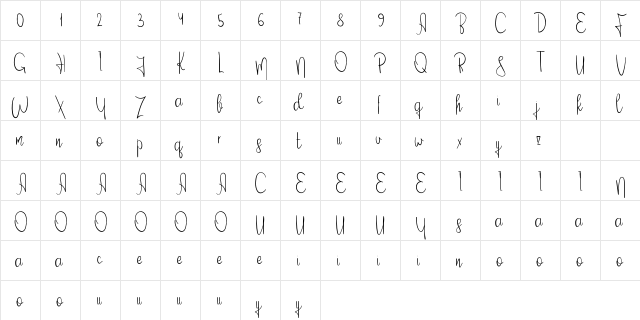
Delicious Yellow Regular
| Designer | Vladimir Fedotov |
Design Context for Delicious Yellow Typeface
Delicious Yellow is a composed and adaptable typeface that performs quietly and consistently across a wide range of design contexts.